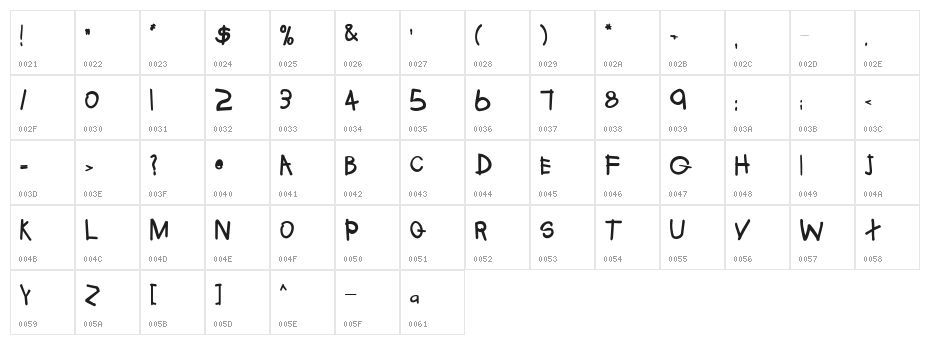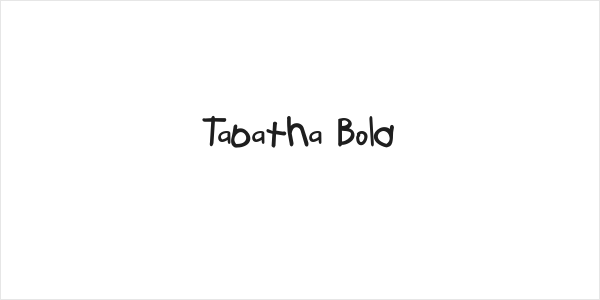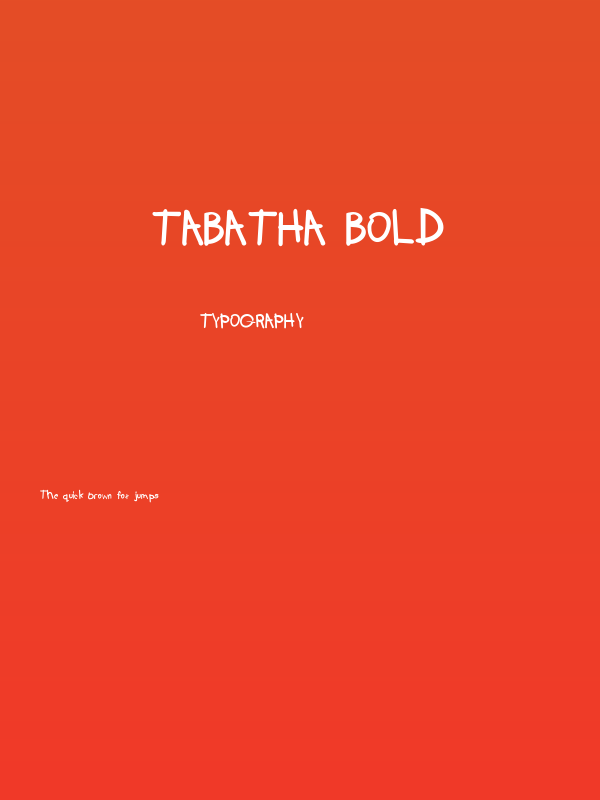
Tabatha Bold Font
Tabatha Bold Description
This playful and bold font features a handwritten style with a casual and friendly appearance. The letters are slightly irregular, adding a whimsical touch to the overall design. The strokes are thick and rounded, giving it a bold presence while maintaining a soft and approachable feel. The font includes a full set of uppercase and lowercase letters, numbers, and a variety of special characters, making it versatile for different uses. Its informal style makes it ideal for projects that require a personal or fun touch.
| Proposed Projects | Ideal for children's books, greeting cards, playful branding, and informal invitations. |